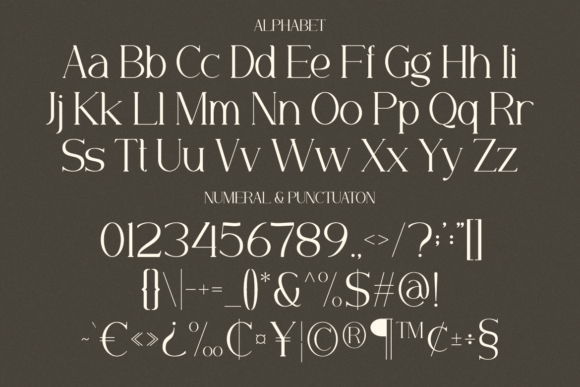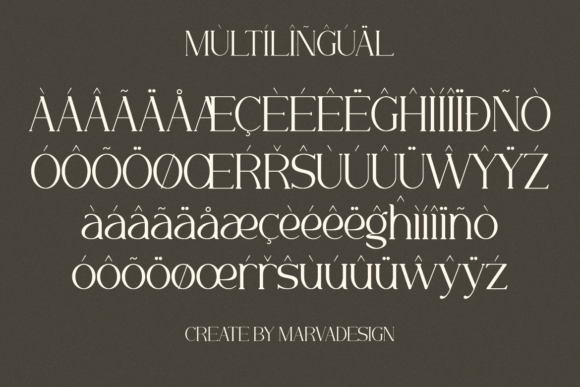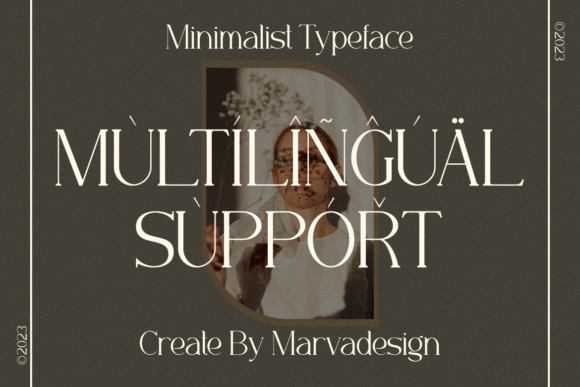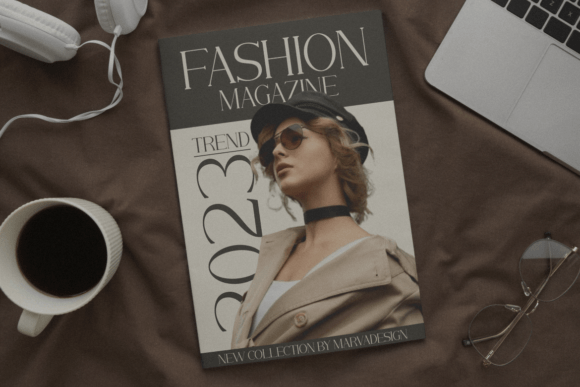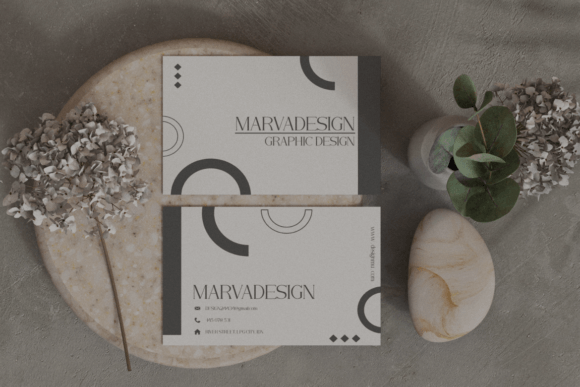
Introduction to Minorid Font
As a designer, there’s nothing quite like the thrill of discovering a new font that elevates your creative project to the next level. The moment when the perfect combination of style and sophistication clicks into place, and you know you’ve found the perfect partner for your design. That’s exactly what happened when I stumbled upon the Minorid Font. This stunning serif font is a game-changer for designers looking to add a touch of elegance to their work.
The Minorid Font is a masterclass in balance and refinement, with crisp lines and refined details that exude sophistication. Whether you’re working on a high-end branding project or creating a stunning visual identity, this font is sure to impress. And the best part? It’s available for free download, making it an invaluable design resource for creatives on a budget.
With its modern twist on traditional serif fonts, the Minorid Font is the perfect choice for designers who want to add a fresh touch to their work without sacrificing quality. Plus, with a transparent background option available, you can easily integrate this font into your design without any hassle. Whether you’re a seasoned pro or just starting out, the Minorid Font is an essential addition to your design toolkit.
Key Features of Minorid Font
- High-quality design with a unique aesthetic, ideal for creative projects that require a distinctive touch.
- Includes a single font weight, making it easy to use and customize for various design purposes.
- Perfect for designers and artists looking for a unique and eye-catching font to elevate their creative projects.
Honest Review: Minorid Font
As a designer, I’m always on the lookout for high-quality design resources to elevate my creative projects. Recently, I came across the Minorid Font, which caught my attention for its sleek and modern aesthetic. I decided to give it a try and see how it performs in real-world applications.
Here are some of the things that work well with the Minorid Font:
- ✨ Clean and minimalist design: The Minorid Font has a very clean and minimalist design that makes it perfect for modern and creative projects.
- ✨ High-quality glyphs: The font has a wide range of glyphs that are well-designed and high-quality, making it suitable for various creative projects.
- ⚠️ Limited language support: The Minorid Font currently only supports a limited range of languages, which may be a concern for designers working on international projects.
- ⚠️ Limited customization options: The font is a basic sans-serif font, which means it may not offer as many customization options as other fonts.
Overall, the Minorid Font is a great addition to any designer’s toolkit, especially for modern and creative projects. While it has some limitations, its clean design and high-quality glyphs make it a great value for free download.
Minorid Font: A High-Quality Design Resource
Tips for Getting the Most Out of Minorid Font
To get the most out of Minorid Font, use it in conjunction with a transparent background to create visually appealing designs. You can also experiment with different font sizes and styles to add depth and interest to your project.
Common Use Cases for Minorid Font
Minorid Font is ideal for a variety of creative projects, including: